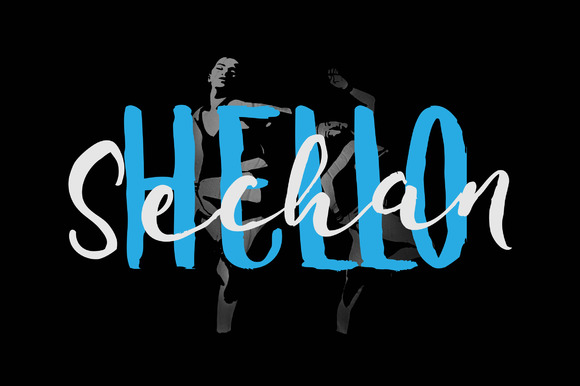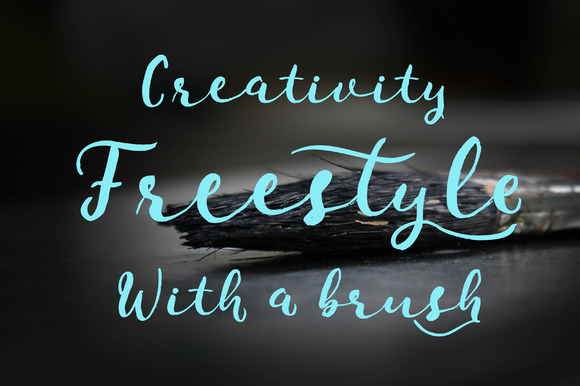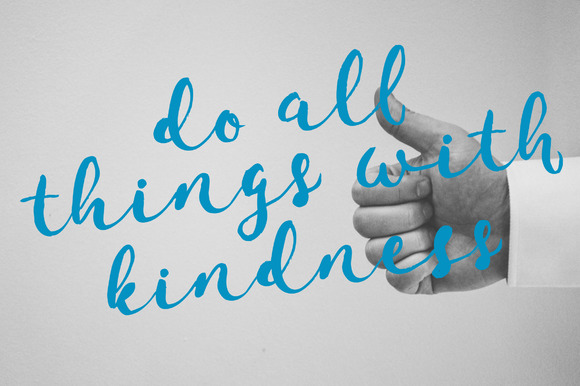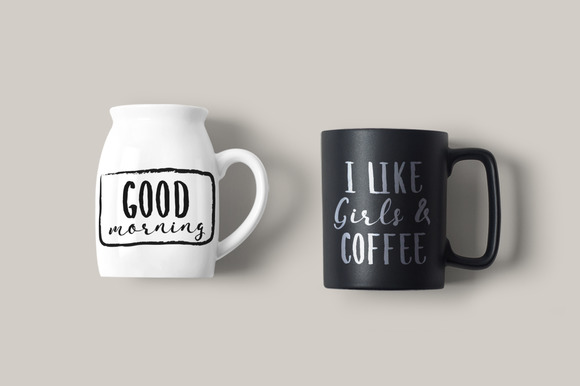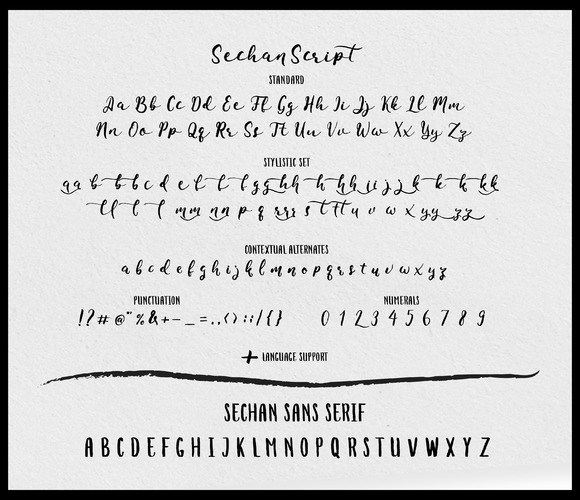
Sechan Font
About Sechan Font
Sechan is a set of 2 hand-made brush fonts. It is designed to combine perfectly and allows you to create masterful typographic designs in a flash.